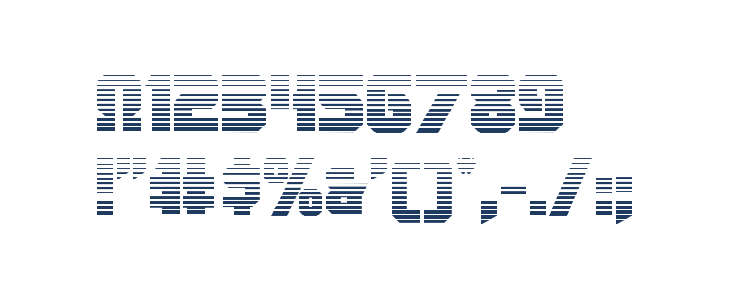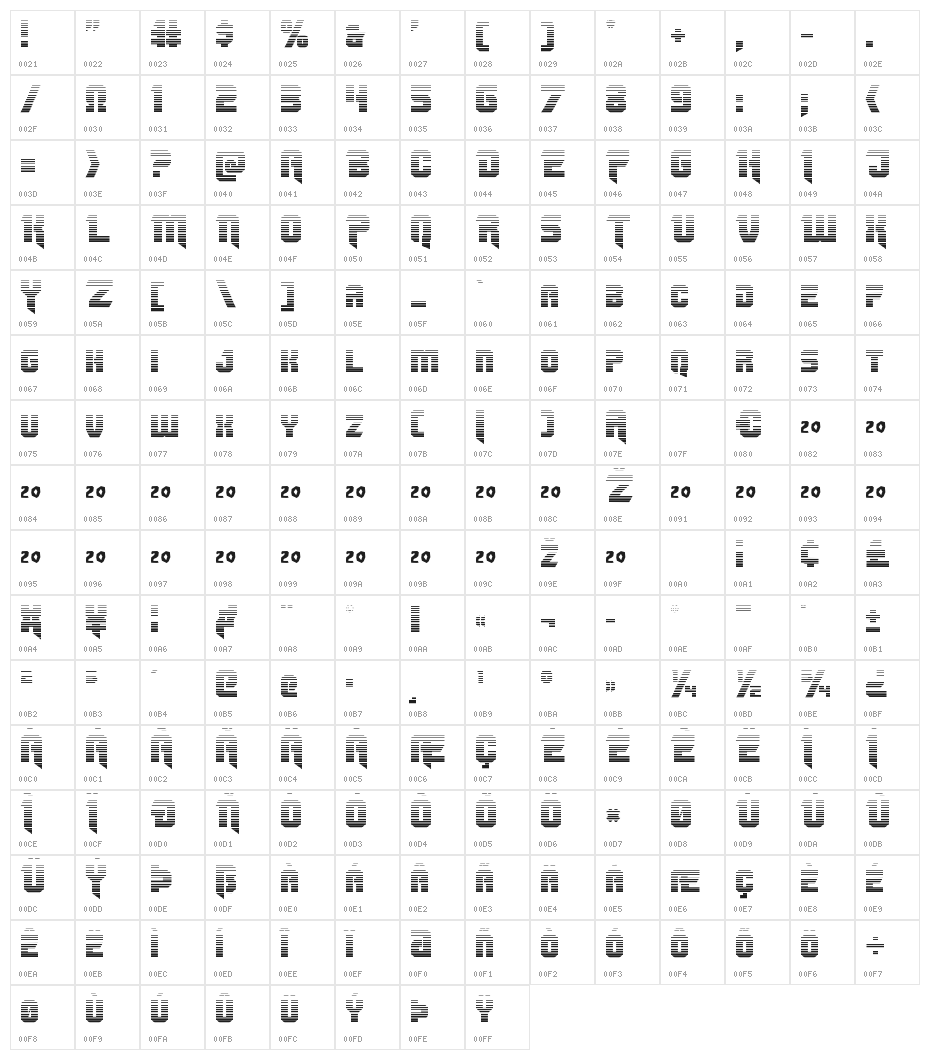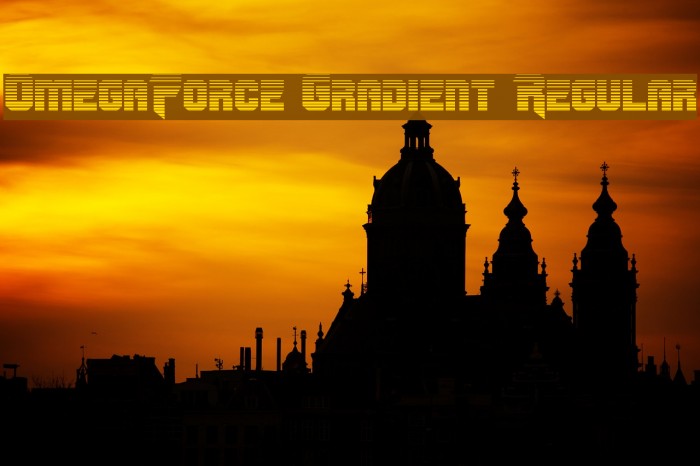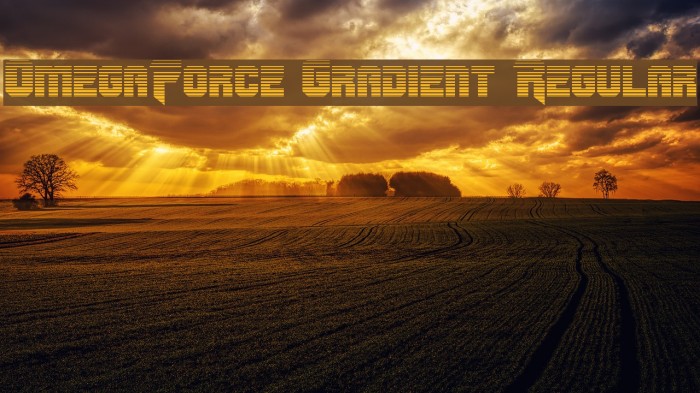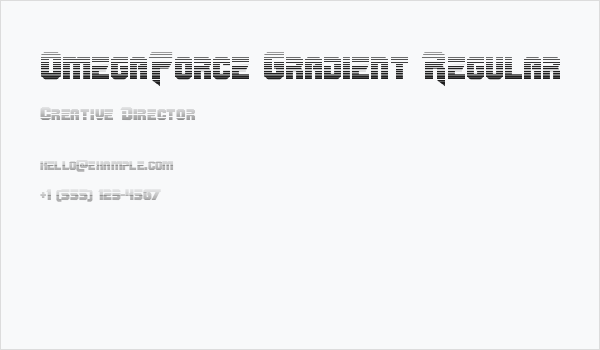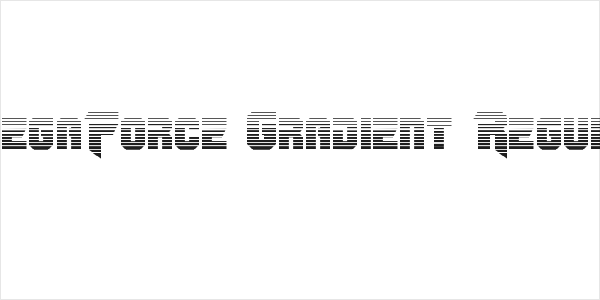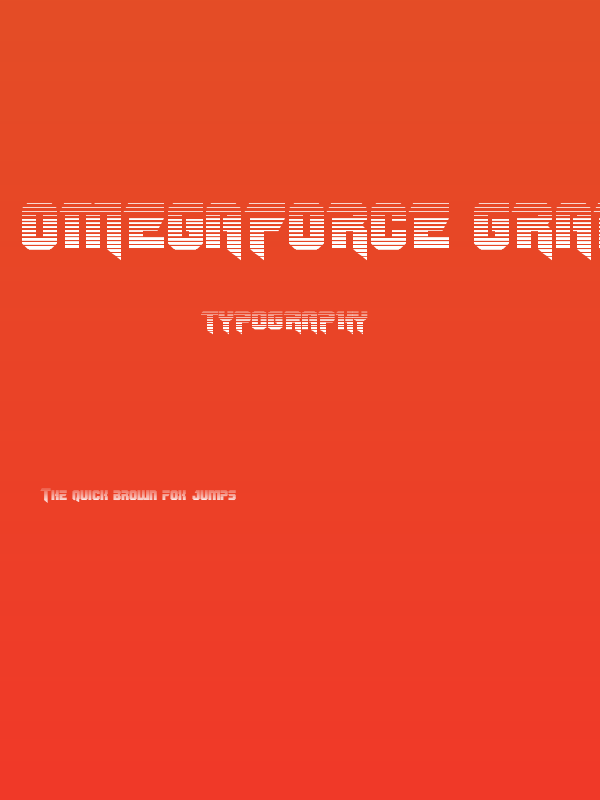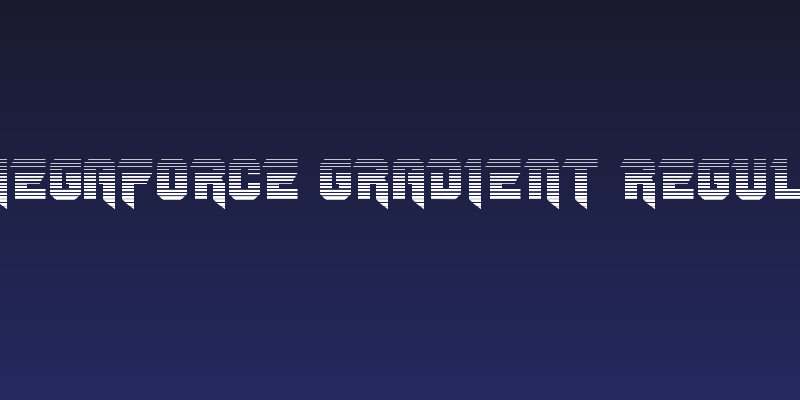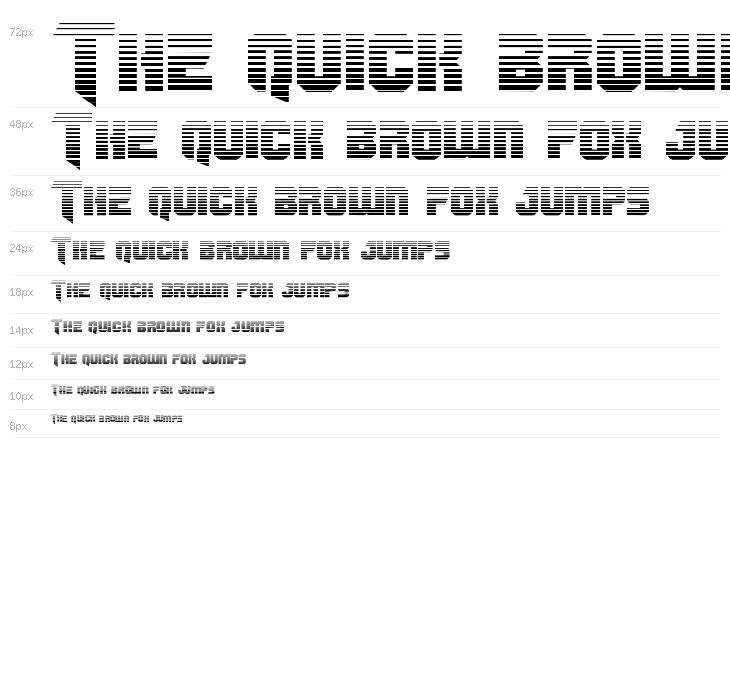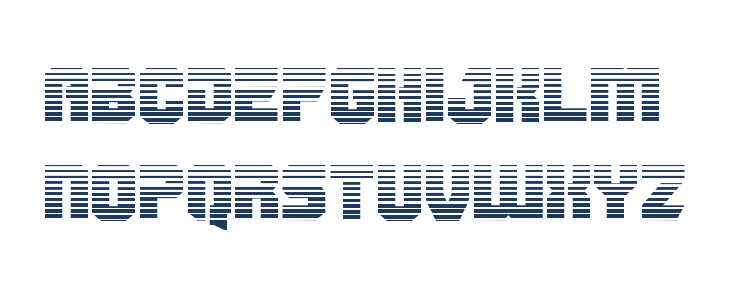
OmegaForce Gradient Regular Font
OmegaForce Gradient Regular Description
This font features a bold, futuristic design with a distinct gradient effect that gives it a three-dimensional appearance. The characters are constructed with horizontal lines that create a sense of movement and depth. The uppercase and lowercase letters maintain a consistent style, emphasizing geometric shapes and sharp angles. The numbers and special characters follow the same design principles, ensuring uniformity across all glyphs. This font's unique aesthetic makes it stand out, ideal for projects that require a modern and dynamic look.
| Proposed Projects | Ideal for sci-fi themed projects, video game titles, tech branding, and futuristic posters. |